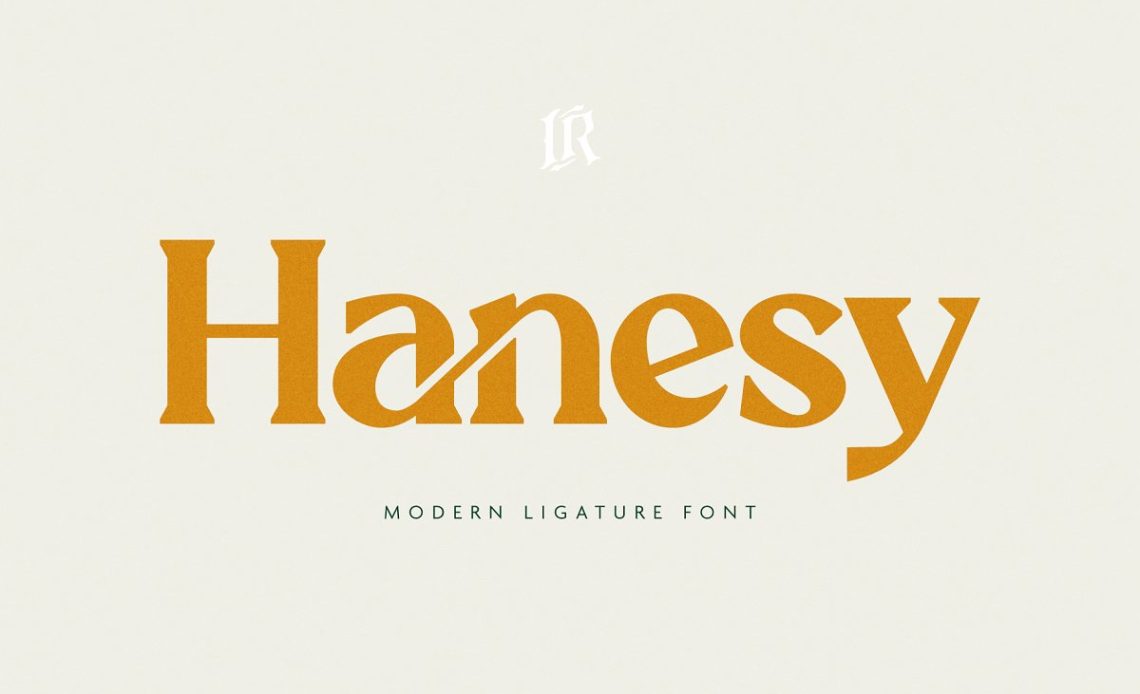
Are you searching for the perfect font for your book cover or other design projects? Look no further than Hanesy, the modern serif font created by Ivan Rosenberg. With its stylish retro look and modern ligatures, Hanesy is sure to catch the eye and leave a lasting impression. This font comes in two versions - regular and outline - making it versatile for a variety of projects. Whether you need a font for advertising, vintage mood boards, branding, logotypes, packaging, titles, editorial design, or modern and vintage design, Hanesy is the perfect choice.
Not only is Hanesy visually stunning, but it is also highly functional. It is easily readable in text size and looks amazing at display sizes. Plus, it supports a wide range of languages, including Albanian, Danish, Dutch, English, Finnish, French, German, Icelandic, Italian, Norwegian, Spanish, Swedish, and many more.